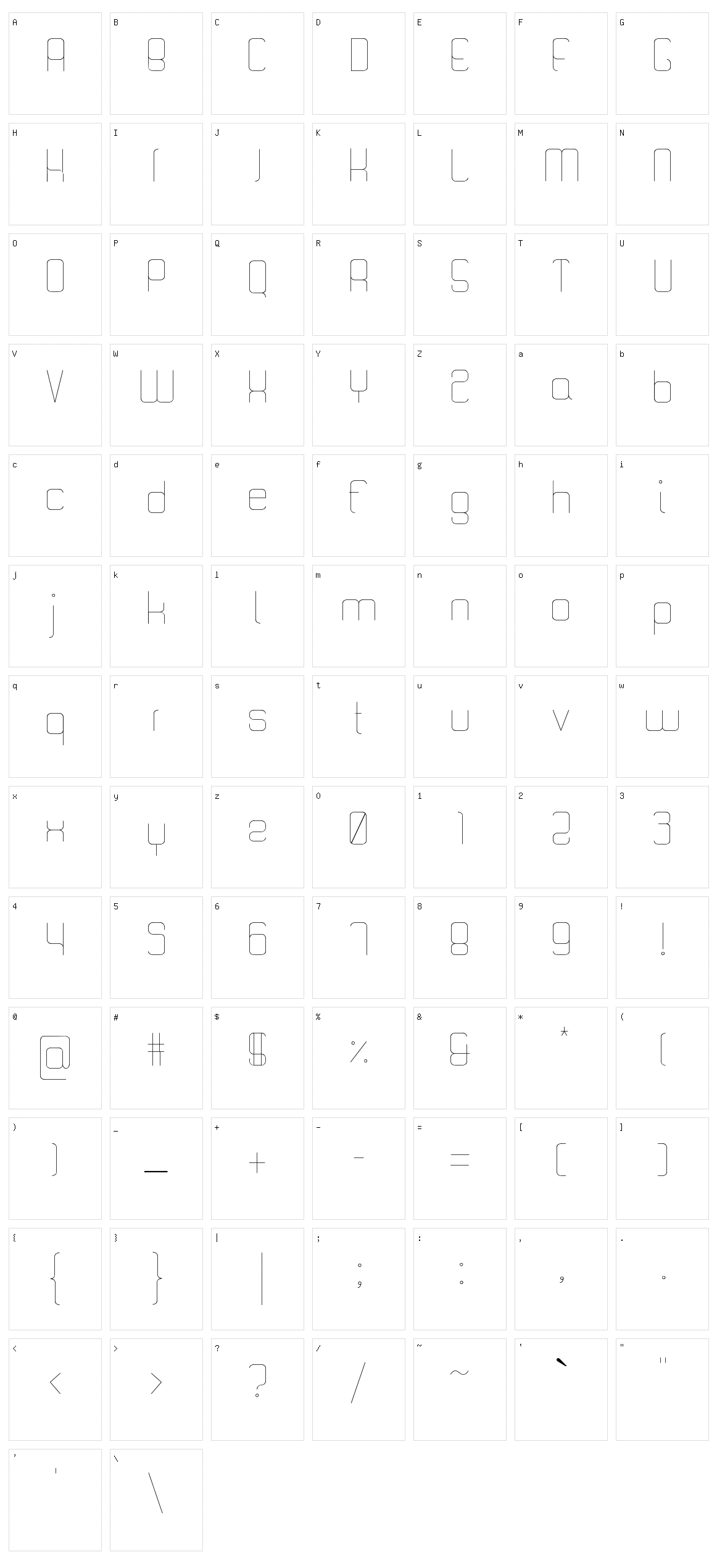
The free font Quattro is carefully designed by Type Sailor, showcasing a thoughtful balance of creativity and usability and falls under the Sans serif font style. When you download the ZIP file, it contains only 144.56 KB of font files, making it lightweight and quick to download. Please review the license details below to understand permitted usage and distribution rights. If license information is not available, we recommend using this font for personal projects only or contacting the author directly for commercial usage permissions.
This font was designed using a geometric grid with a simple pattern.